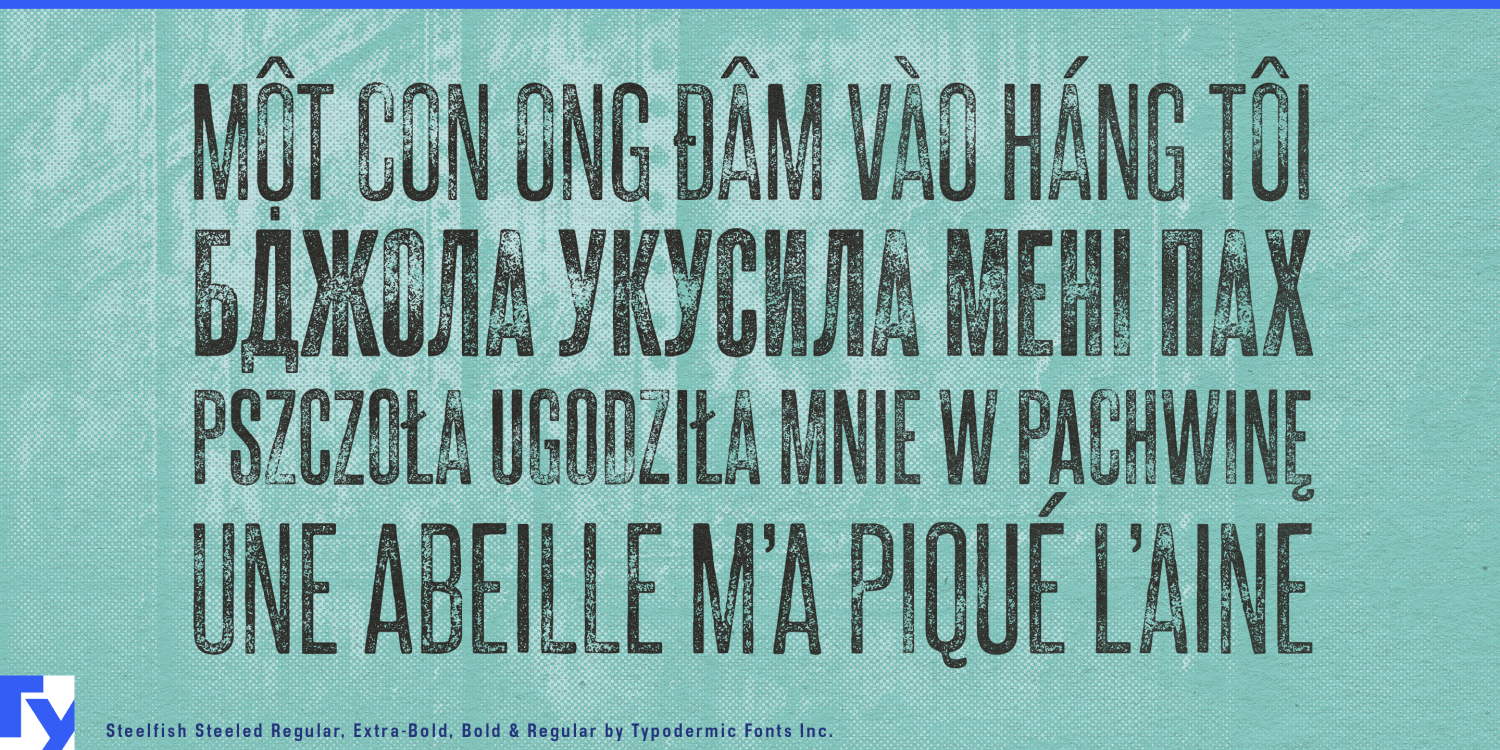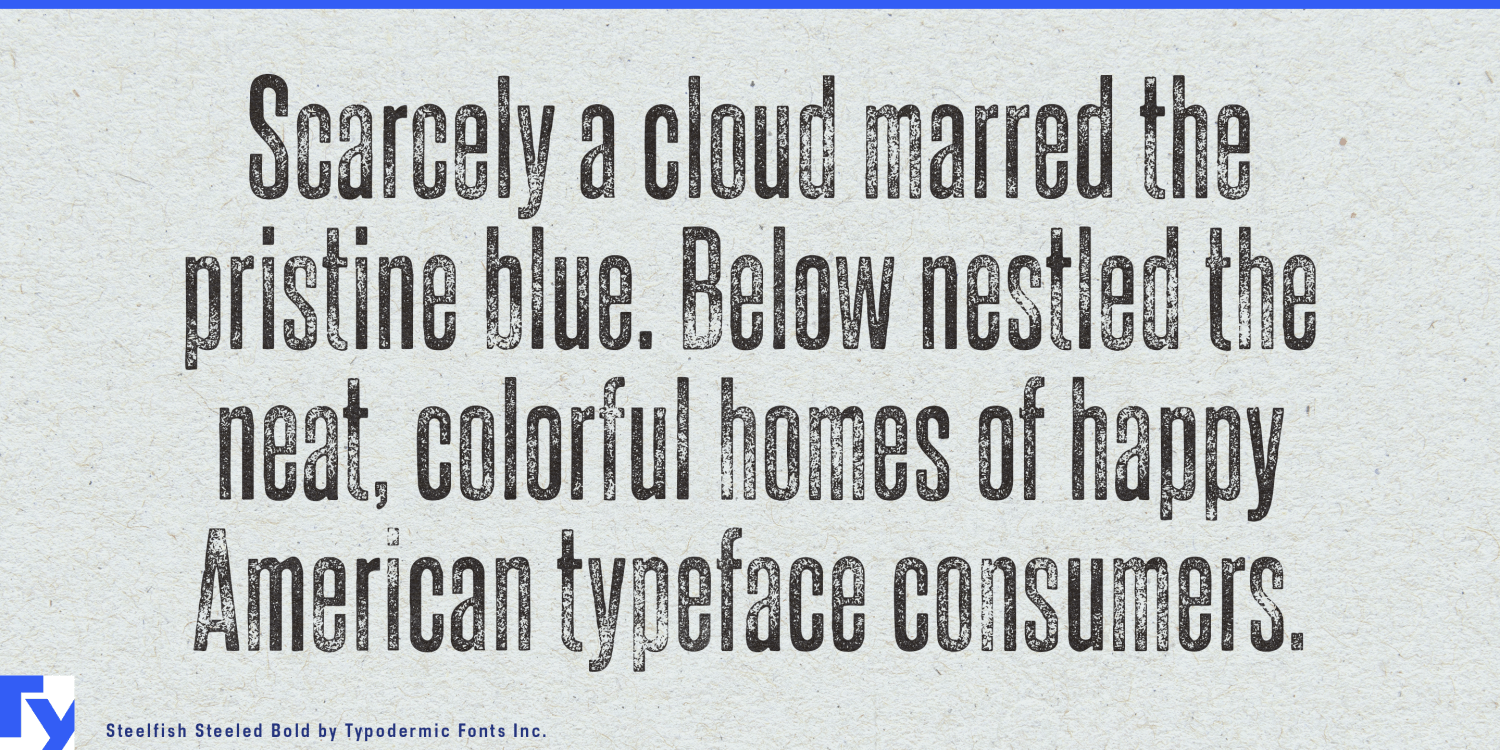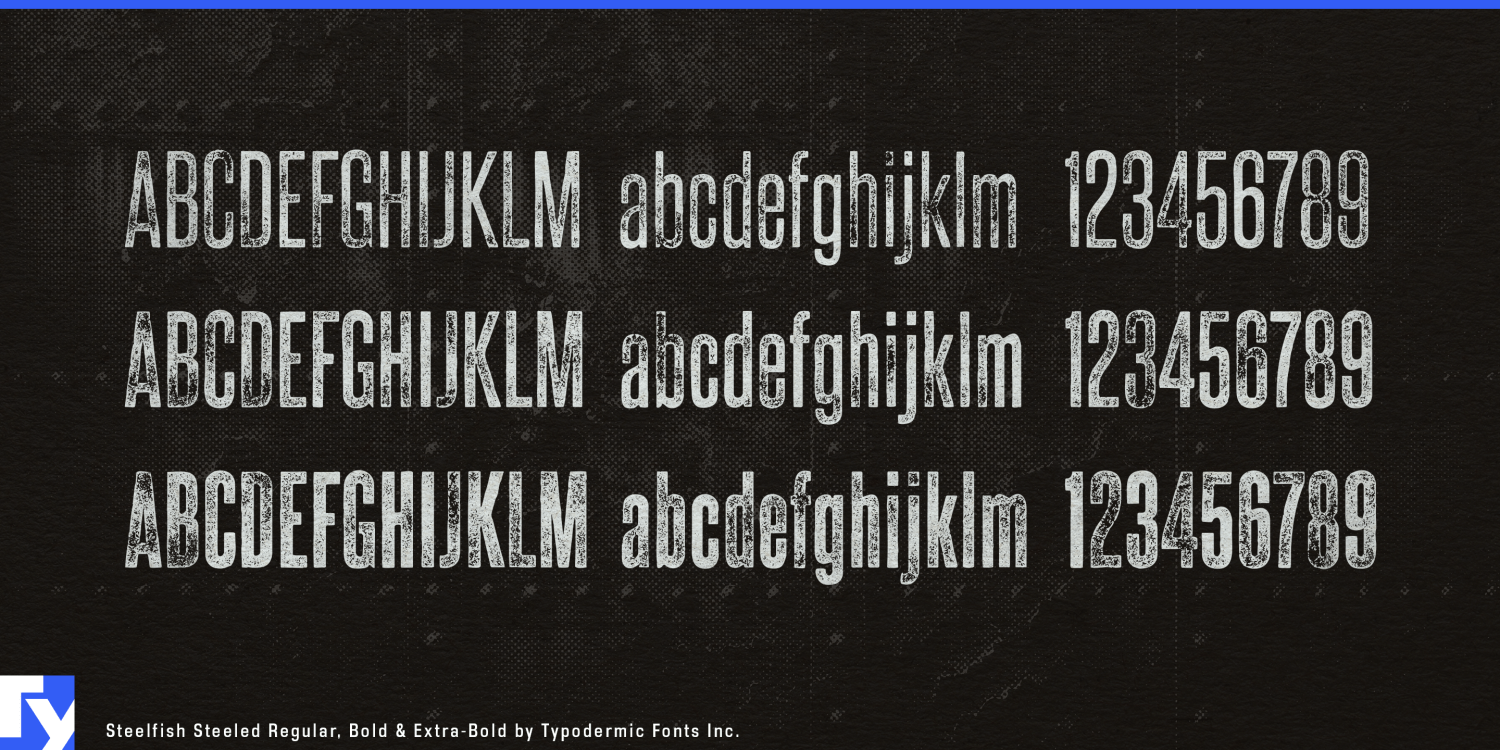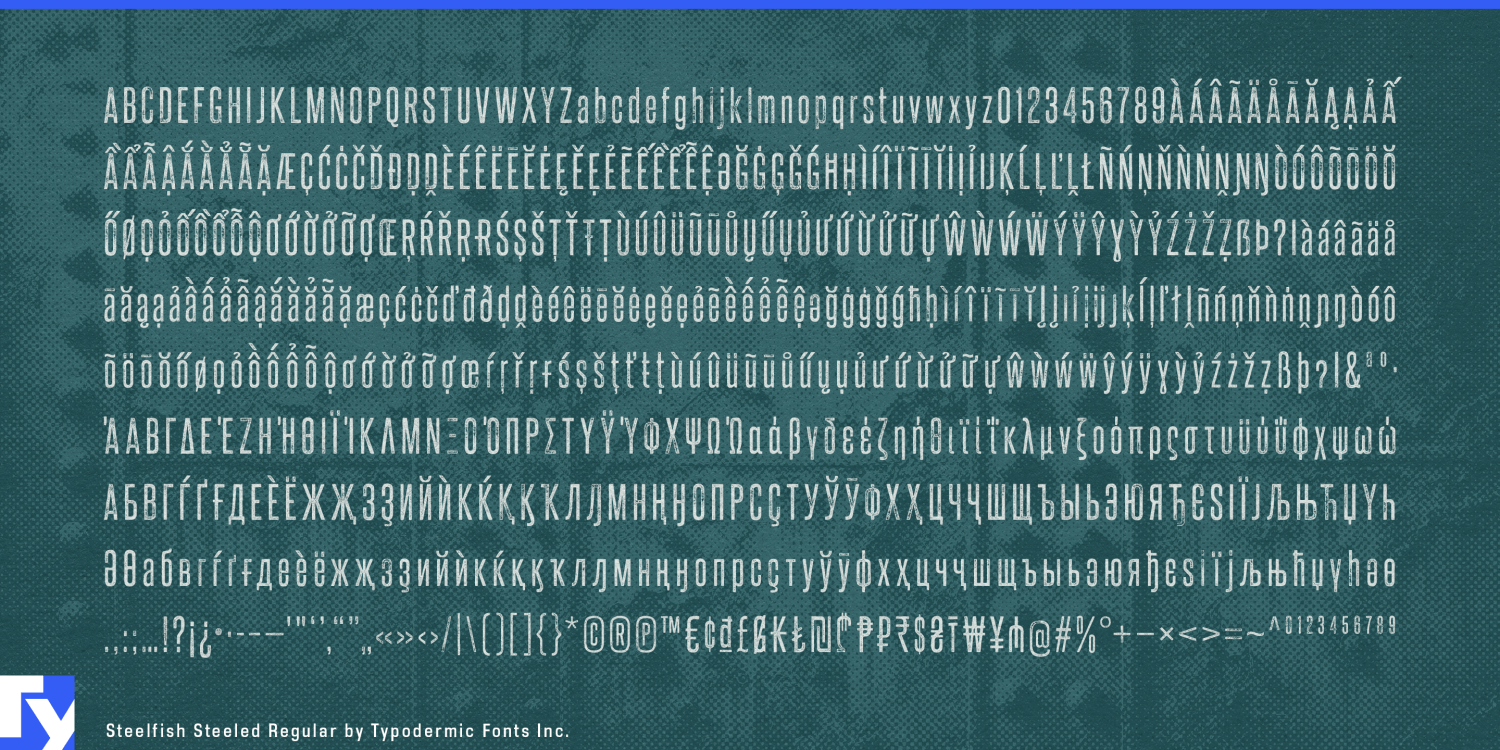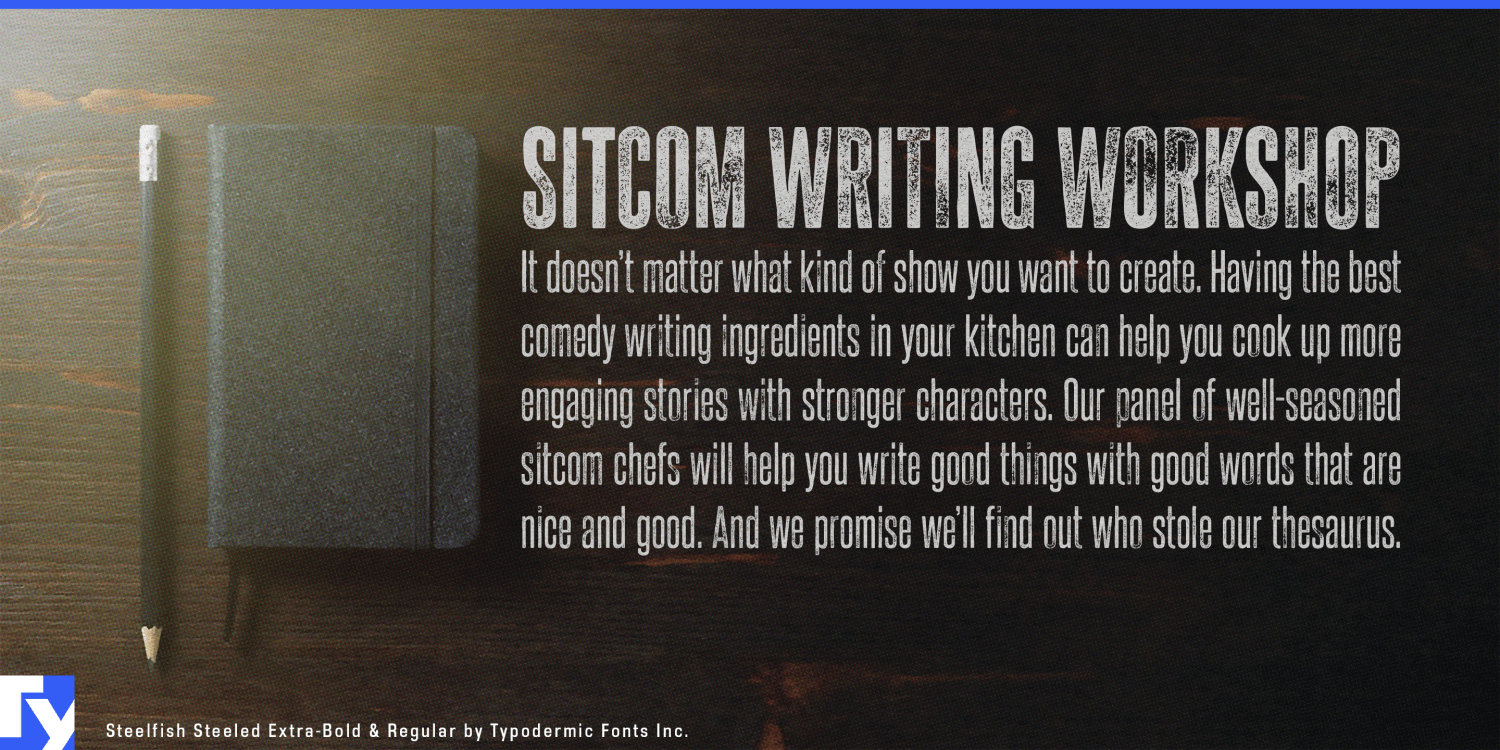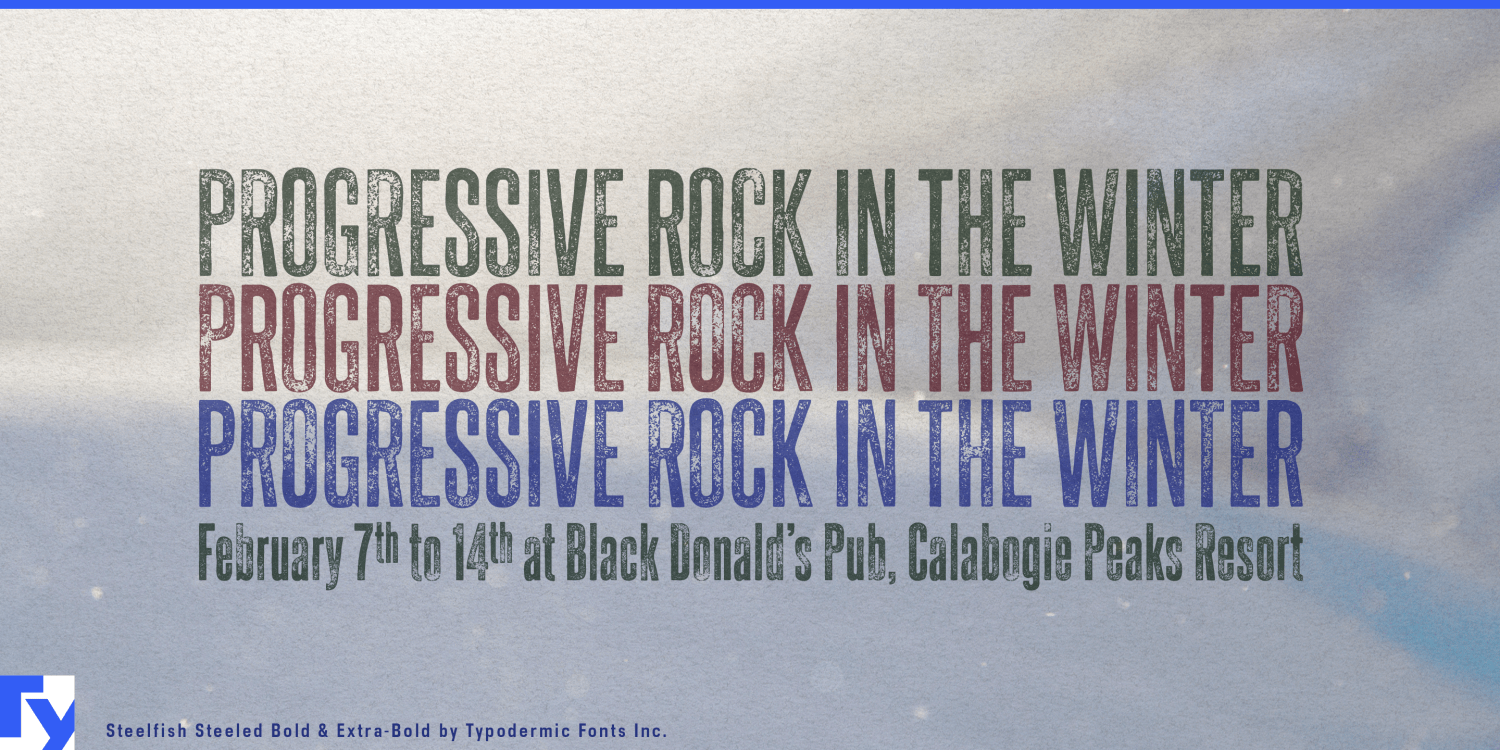
Steelfish Steeled
Font Family by Typodermic
Welcome to the foundry floor, where Steelfish Steeled forges letters with the raw power of industrial might. This is a visual battlecry for designs that demand respect, crafted for those who aren’t afraid to get their hands dirty in the pursuit of typographic excellence.
Steelfish Steeled doesn’t politely ask for attention; it seizes it with the grip of a seasoned steelworker. Each character bears the marks of its creation, a letterpress texture that whispers tales of honest labor and uncompromising craftsmanship. It’s as if each letter has been stamped out on the factory floor, carrying the proud imperfections that speak of authenticity and grit. But this typeface isn’t content with a one-size-fits-all approach. Oh no, it’s got tricks up its steel-reinforced sleeves. With three distinct letter texture variations that shuffle automatically in OpenType-savvy applications, Steelfish Steeled brings a living, breathing quality to your typography. It’s like having a master craftsman at your beck and call, ensuring each word looks hand-forged and unique. And for those moments when uniformity is key? Simply toggle off the “standard ligatures” feature, and watch as your text falls into perfect, orderly ranks.
Steelfish Steeled flexes its typographic muscles with three weights, each one rustier and more formidable than the last. From the lightest weight that suggests the patina of time to the heaviest that could have been chiseled from a steel girder, this typeface offers a full spectrum of industrial strength. But remember, Steelfish Steeled isn’t a lone wolf in the typographic wilderness. It’s part of a hardworking family, each member ready to tackle different design challenges. There’s the classic Steelfish for everyday heavy lifting, Steelfish Rounded for when you need to soften the edges without losing strength, Steelfish Hammer for those impact-driven projects, and Steelfish Unleaded for stripped-down, gritty communication.
Steelfish Steeled’s linguistic versatility is as impressive as its visual impact. Supporting a vast array of Latin-based European, Vietnamese, Greek, and Cyrillic-based writing systems, this typeface ensures your message maintains its industrial strength across borders and languages. From the shipyards of Hamburg to the steel mills of Pittsburgh, from the workshops of Hanoi to the construction sites of Moscow, Steelfish Steeled speaks the universal language of hard work and honest craftsmanship.
So, when your design needs to roll up its sleeves and get to work, reach for Steelfish Steeled. It’s more than a font—it’s a testament to the enduring power of industrial aesthetics, ready to stamp your ideas into the very fabric of visual communication. With Steelfish Steeled, you’re not just setting type; you’re forging a legacy of design that’s built to last. It’s time to steel yourself for impact and let your typography do the heavy lifting!